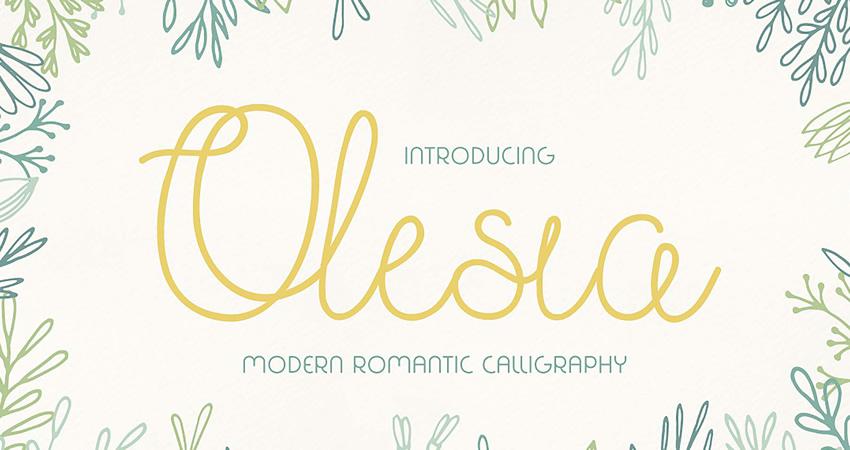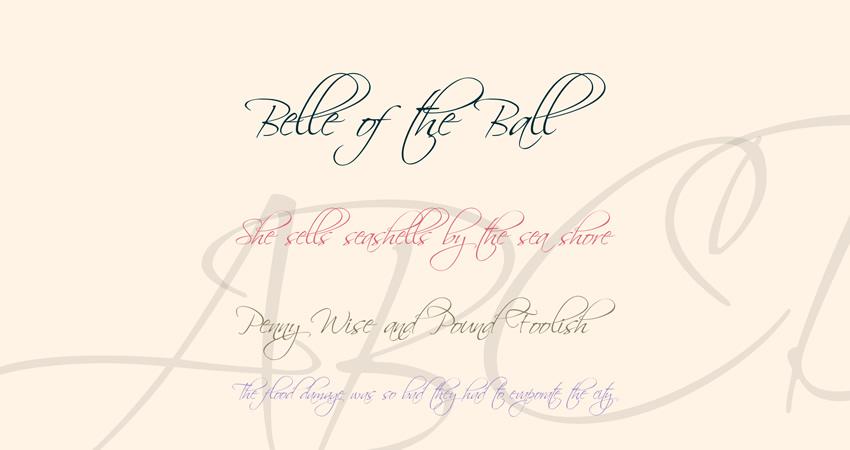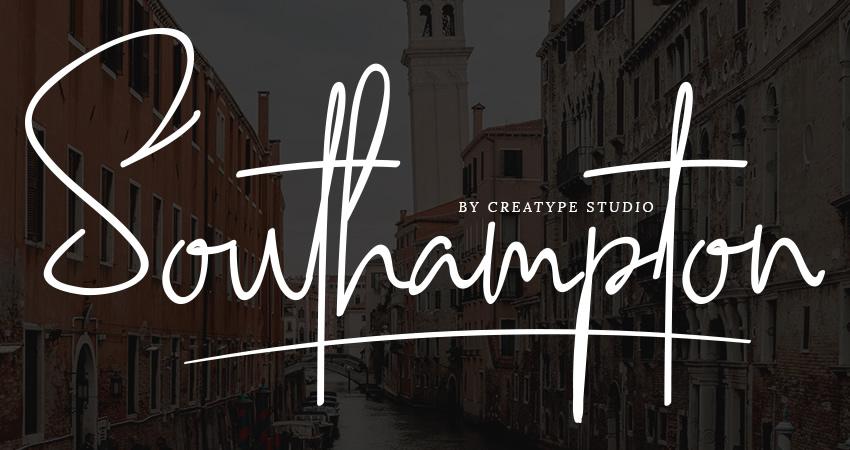
20 Free Elegant Script Fonts for Designers
Script fonts can make any project look and feel more elegant. They can be used in branding projects as well as in movie design, apparel design, social media design, and more. There is no shortage of high-quality script fonts that you can download for free, however, finding them can be quite time-consuming.
Contraband Monoline Script Font (Free)
Try the Contraband font if you’re after a font with a retro, vintage feel. This font comes in two versions and includes uppercase, lowercase, numbers, punctuation, and special characters. The font is free for personal use.
Clattering Brush Typeface (Free)
The Clattering Brush Typeface if a great choice if you’re looking for a brush font. It has a free-flowing form and can be used in both personal and commercial projects alike.
Bettina Script Font (with Envato Elements Subscription)
The Bettina Script font has a lot of personality and would be a great choice for a branding project or wedding invitations. The font is a part of your Envato Elements subscription so go ahead and grab it for your next project.
Beattingvile Script Font (Free)
If you’re looking for a bold font, try Beattingvile Script. This font includes stylistic alternates, swashes, ligatures and is multilingual. Use it for branding, posters, social media quote graphics, and more.
The Lastwinter Vintage Script Font (Free)
Try the Lastwinter font if you need a vintage look and feel. The font is free for personal use and includes stylistic alternates, uppercase and lowercase letters, special characters, and numbers. You will also get premade logo templates.
Hello Santtiny Brush Script (Free)
Hello Santtiny is a beautiful brush script that’s perfect for wedding invitations. It comes with extra swashes so you can easily create beautiful typography based designs. The font can be used in personal and commercial projects.
Modesta Script Font Duo (with Envato Elements Subscription)
This font duo includes a monoline and a regular font that can be used in branding project geared towards a female audience. You can also use it in wedding invitations or social media graphics.
Raphtalia Font (Free)
The Raphtalia font is free for personal use and has a retro look and feel. It comes with a complete set of uppercase and lowercase letters, numbers, and special characters. You will also find extra swashes and ligatures and multilingual support.
Tahu Script Font (Free)
Tahu is a modern and clean script font that can be used in personal and commercial projects. The font includes uppercase and lowercase letters, numbers, punctuation characters, and multilingual support.
Pradita Script Font (with Envato Elements Subscription)
The Pradita script font is a great choice for any luxury branding or design project. It’s available in OTF . TTF and WEB FONT formats and you can use it for poster designs, clothing labels, social media graphics, and more.
Dephiana Bold Script Font (Free)
Consider the Dephiana font if you’re looking for a bold and attention-grabbing font. This font would be a great choice for a logo or a signboard. It comes with uppercase and lowercase letters, numbers, and several stylistic alternates.
Mellgatha Monoline Script Font (Free)
The Mellgatha font is free for personal use. It’s a great choice for a logo or branding project but you can also use it for wedding invitations or business cards. The font includes uppercase and lowercase letters, numerals, special ligatures, and multilingual support.
The Crawley Script Font (Free)
The Crawley font comes in 3 styles: rough, clean, and textured. It includes a script and a sans-serif version so you can easily create beautiful designs. It’s free for personal use.
Kasturi Luxury Script Font (with Envato Elements Subscription)
The Katsuri font is perfect for fashion, beauty or cosmetics branding projects. It comes with full multilingual support and you can get it as a part of your Envato Elements subscription.
Hello Santtiny Brush Script Font (Free)
Hello Santtiny is a beautiful brush script that’s perfect for wedding invitations. It comes with extra swashes so you can easily create beautiful typography based designs. The font can be used in personal and commercial projects.
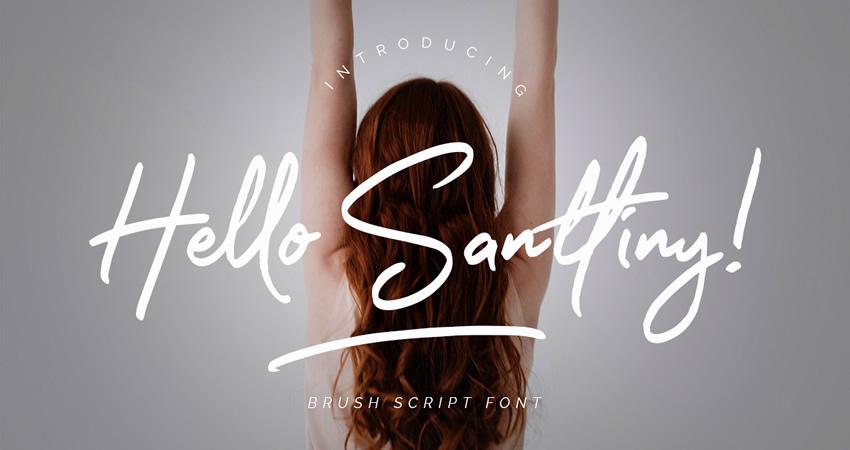
Lil Stuart Fonts Collection (Free)
The Lil Stuart font is a collection of two fonts, script and sans-serif fonts which go well together so you can easily use it to create beautiful typography designs. The font is free for personal and commercial use.
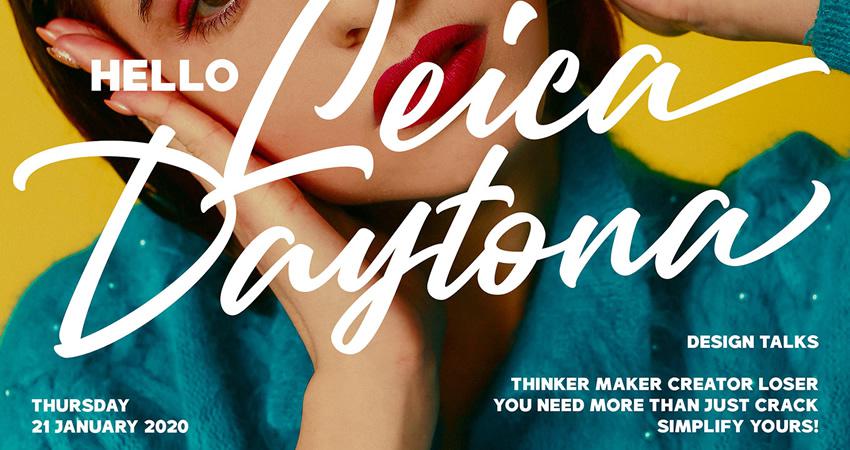
Serendipity Script Font (Free)
The Serendipity font has a beautiful water-color look and feel so it’s a great choice for subtle, feminine designs or wedding invitations. The font is free for personal and commercial use and includes OTF, TTF, and WEBFONT versions.
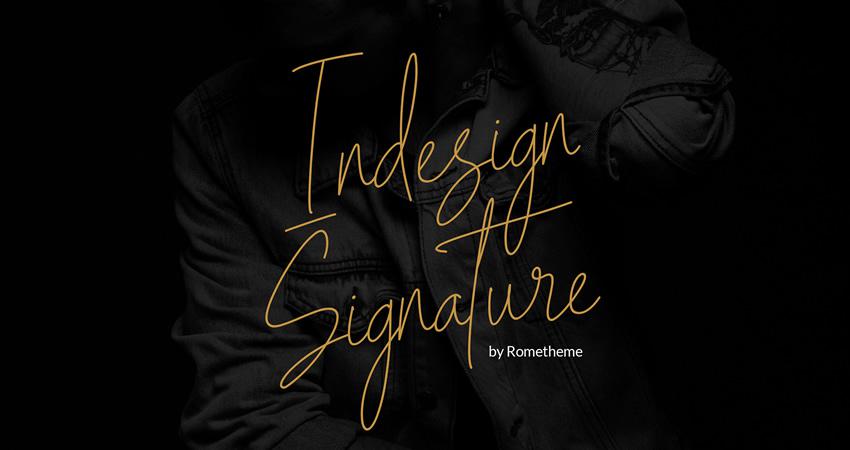
Peterbuilt Font (Free)
The Peterbuilt font is a great bold script font that can be used in personal and commercial projects. Use it for branding, social media, magazines, and any other design where bold typography is needed.
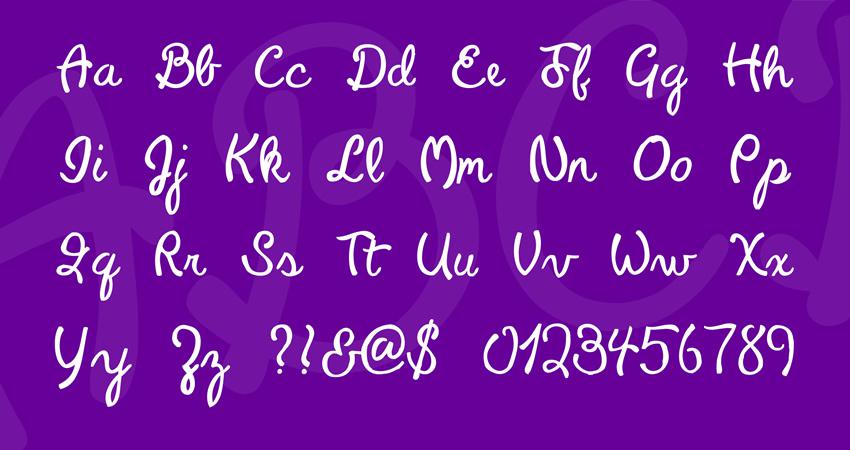
Script fonts are a great way to add character to your designs and convey a lot of different emotions. They are also pretty versatile so you can use them in branding projects, magazine layouts, social media graphics, and much more.